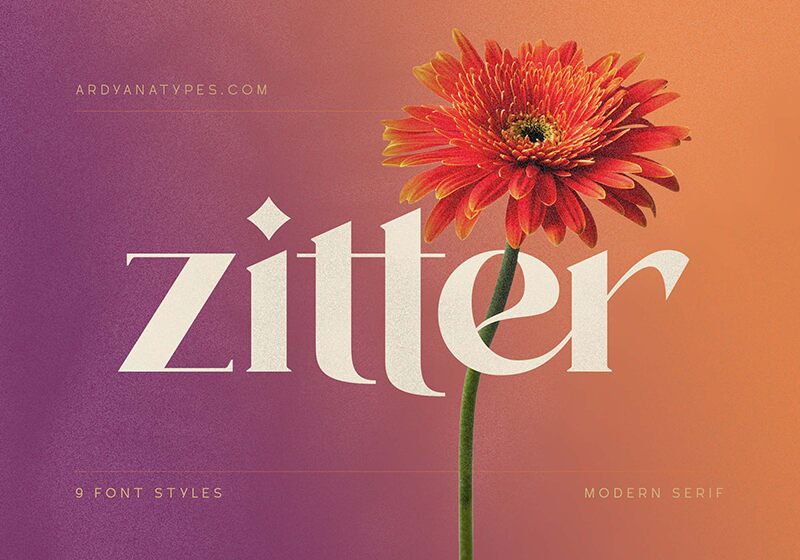
Introducing Zitter, a quality serif font created by Ardyanatypes. Ideal for editorial projects and adding a classic yet modern touch to web designs, Zitter will add an elegant flair to any project.